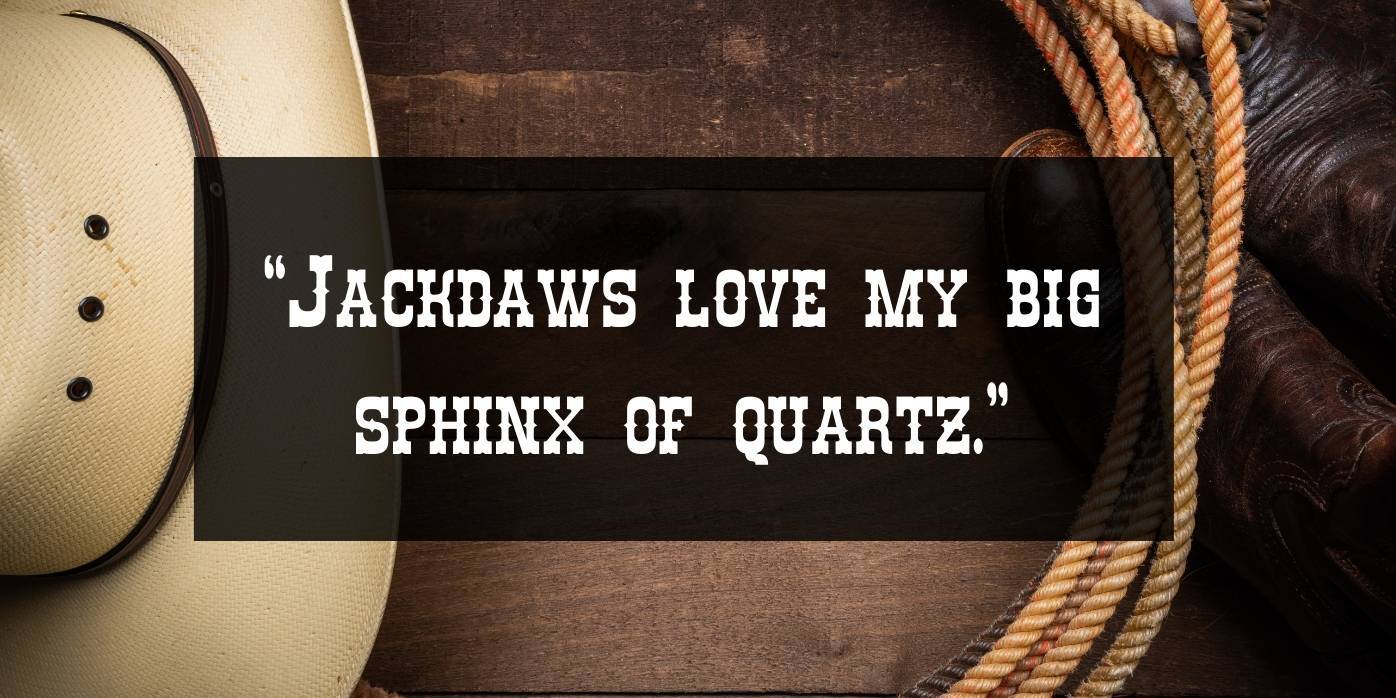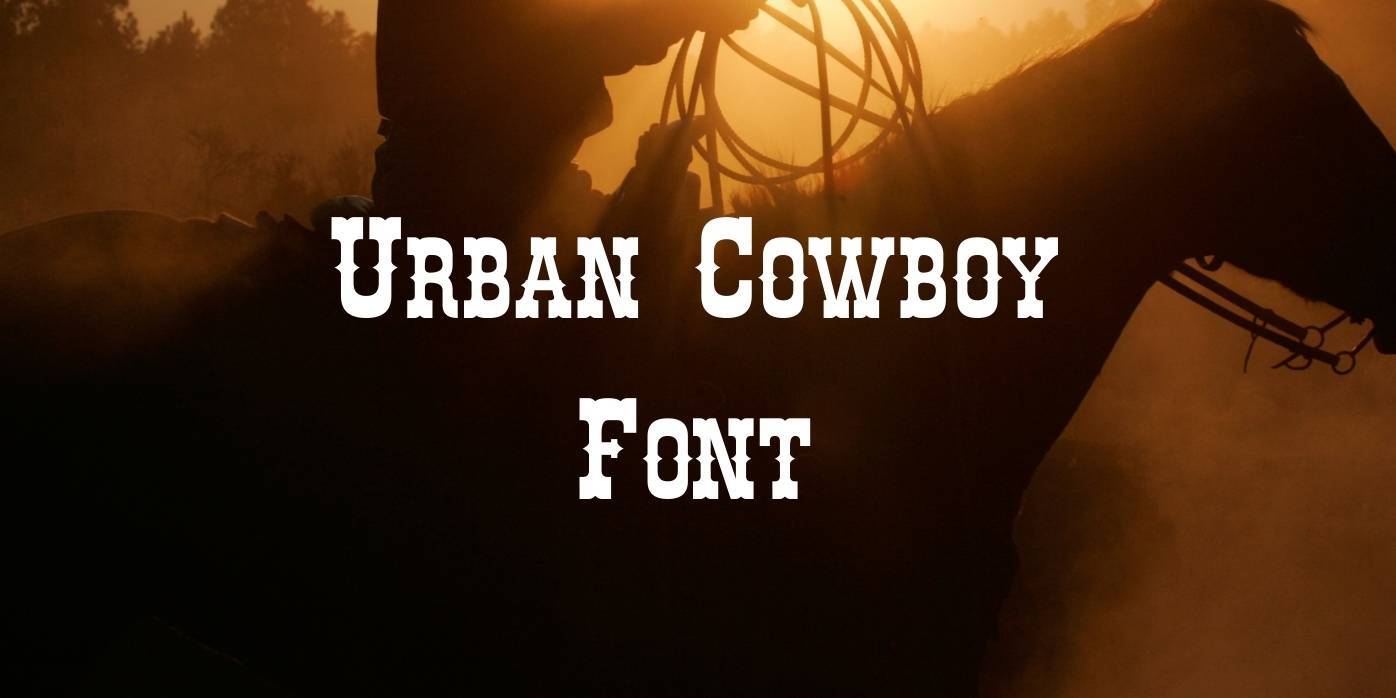
Urban Cowboy Font
Urban Cowboy Font was developed and published by a very famous designer Raymond Larabie. This stunning typeface belongs to the Display typeface. This typeface has keen features and clear textures. This amazing font has available only in the Regular style with 42 special characters.
Its different styles will give a new and innovative look to your work. Here, another font is available that is similar to this typeface known as the highstories font This is a very popular font for many reasons. It is an easy-to-read font that is still unique and stylish. The Urban Cowboy Font would be perfect for any project that needs a touch of urban style.